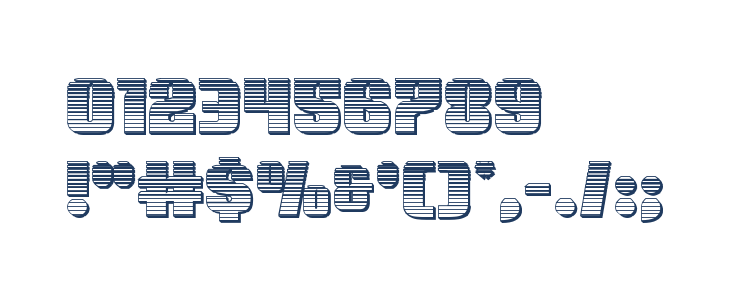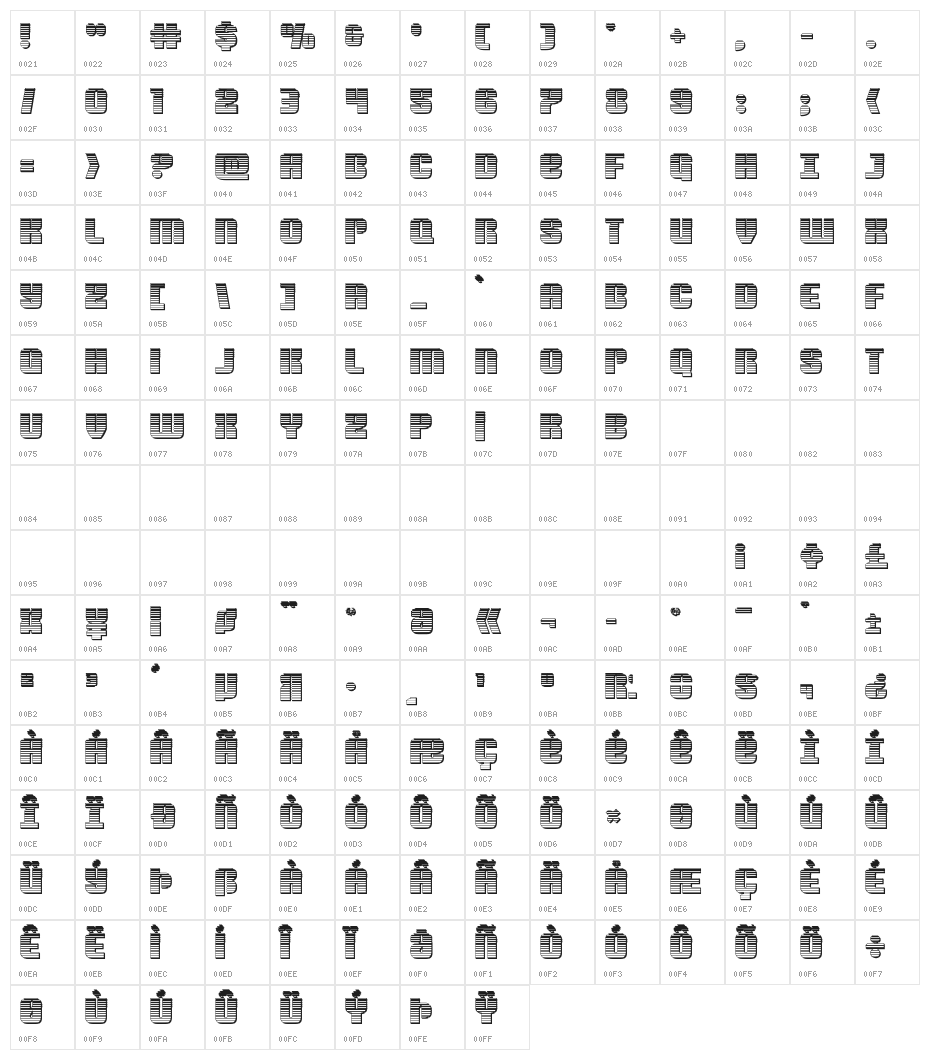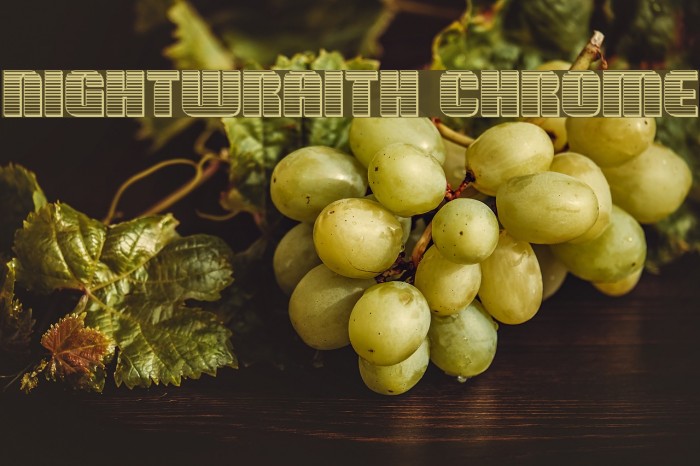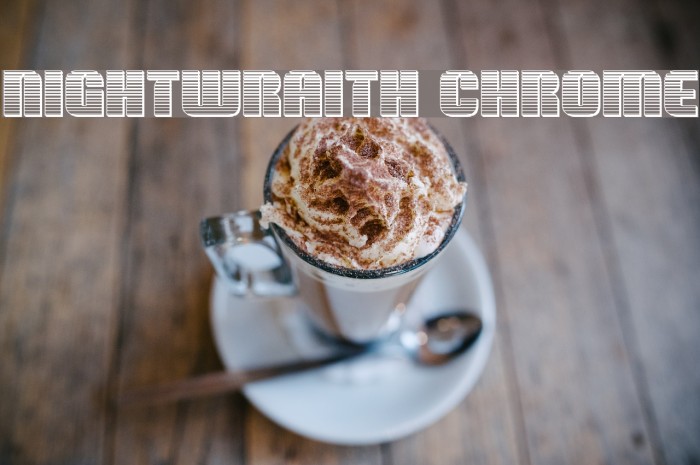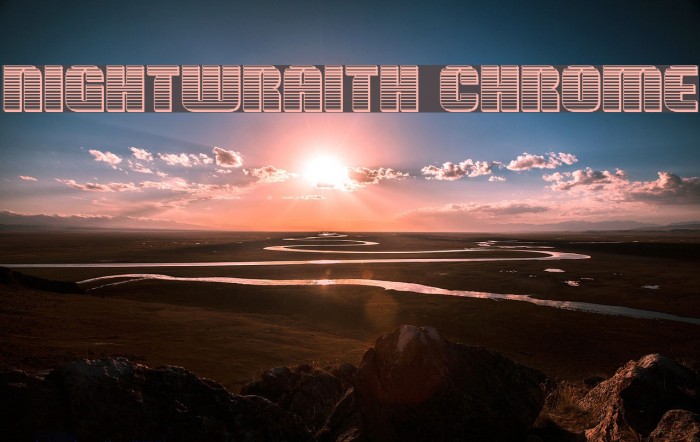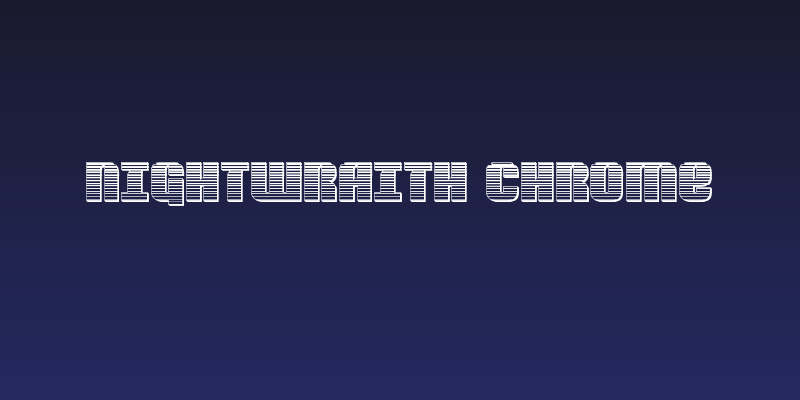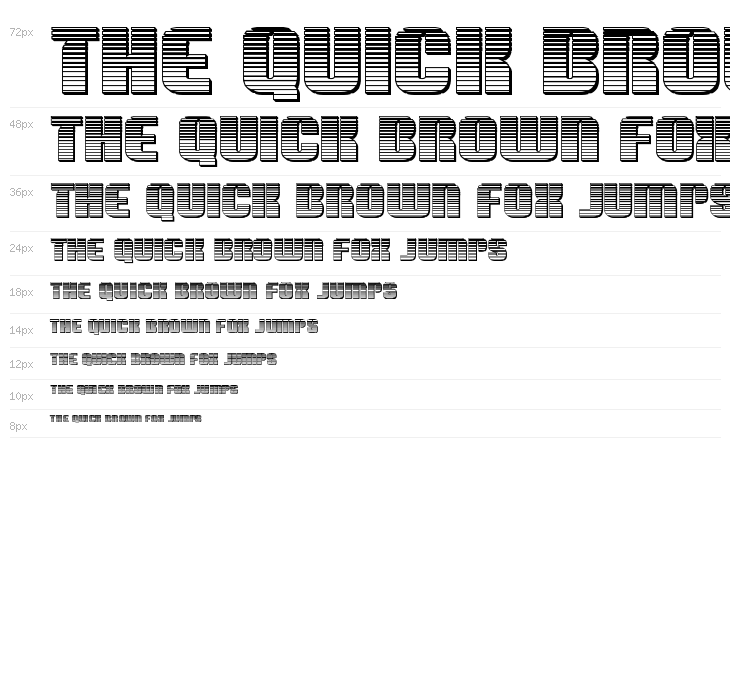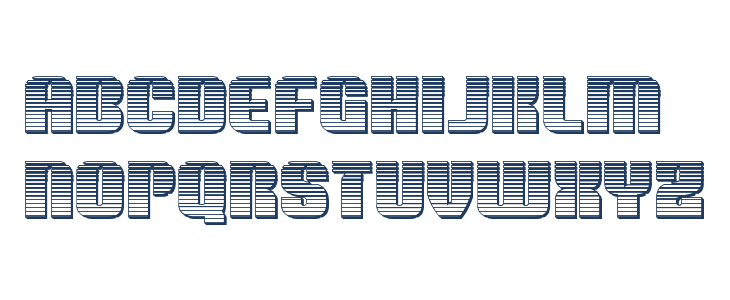
Nightwraith Chrome Font
Nightwraith Chrome Description
This font features a bold, futuristic design with a distinct striped pattern running horizontally across each character. The uppercase and lowercase letters maintain a consistent width, giving the font a monospaced appearance. The geometric shapes and sharp angles contribute to a modern and industrial aesthetic. The numbers and special characters are designed with the same striped pattern, ensuring uniformity across all glyphs. This font's unique style makes it stand out, offering a visually striking option for creative projects.
| Proposed Projects | Ideal for sci-fi themed designs, video game titles, posters, and branding that requires a modern, industrial look. |